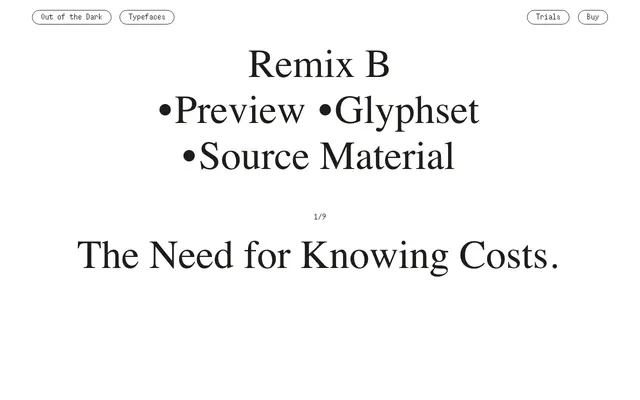
A three-style sans-serif from Swiss foundry Out of the Dark, offering Regular, Italic and a Mono variant within a single family.
Part of Out of the Dark's Remix series alongside Remix A, this family ships in three styles: Regular, Italic and Mono. The inclusion of a monospaced cut alongside the proportional styles suggests a design intended to cross between editorial and technical or screen-based contexts. The foundry's broader catalogue favours sharp, stripped-back design consistent with contemporary Swiss type production.
The page provides minimal detail, but the family structure with Regular, Italic and Mono styles, alongside the broader Out of the Dark catalogue aesthetic, points to a contemporary grotesque or neutral sans-serif design.